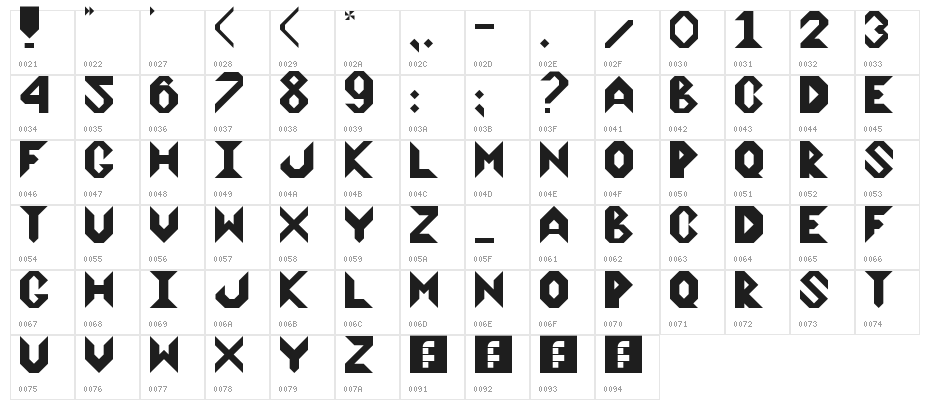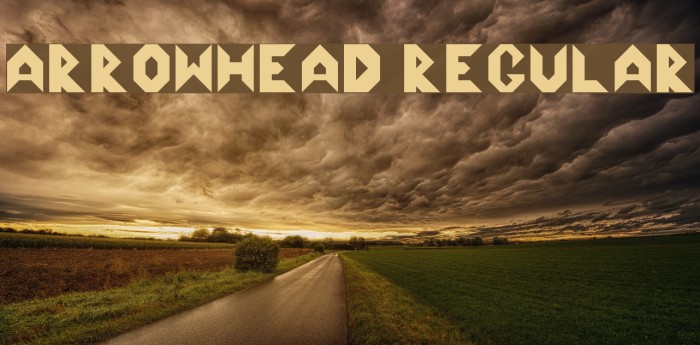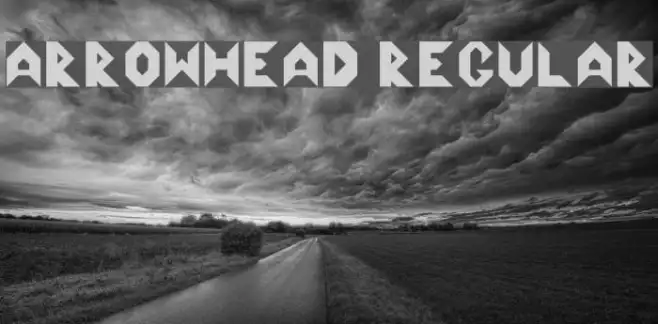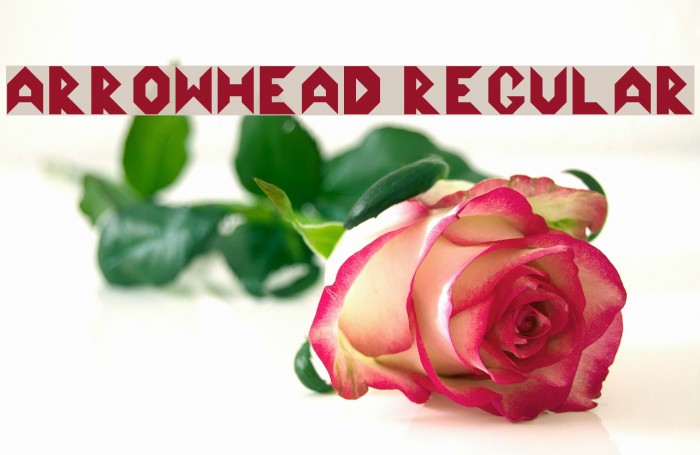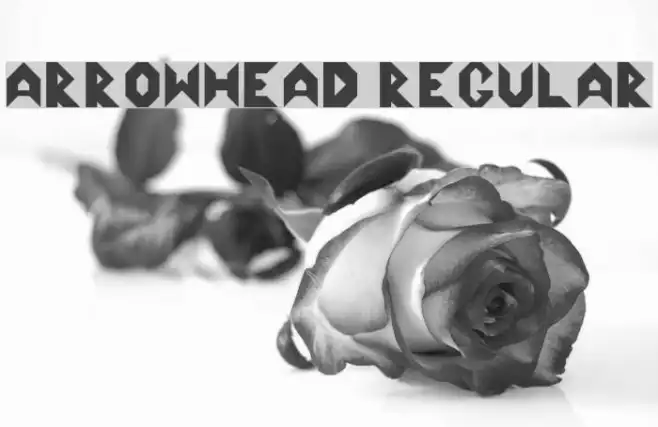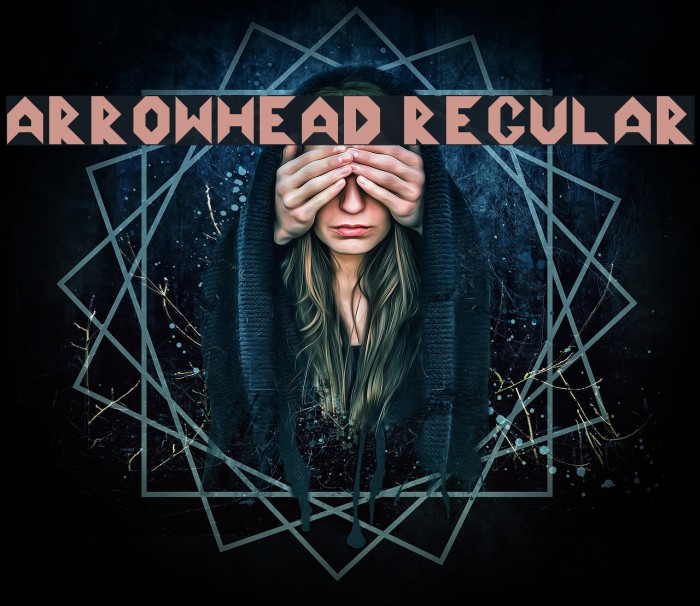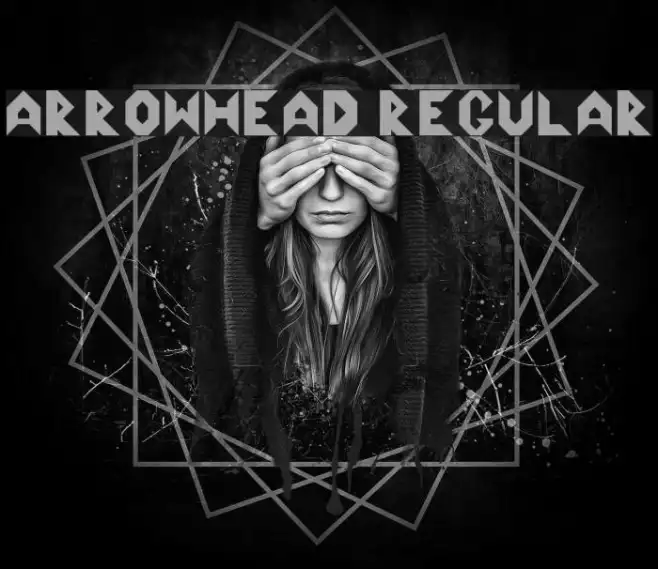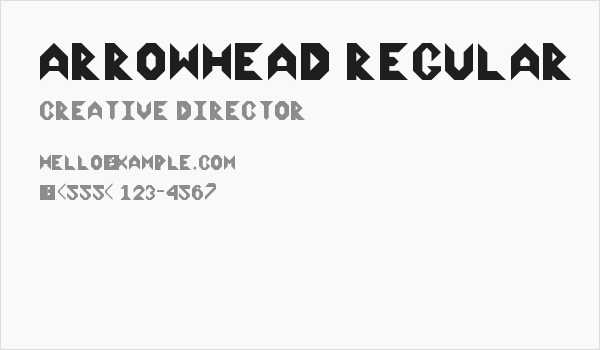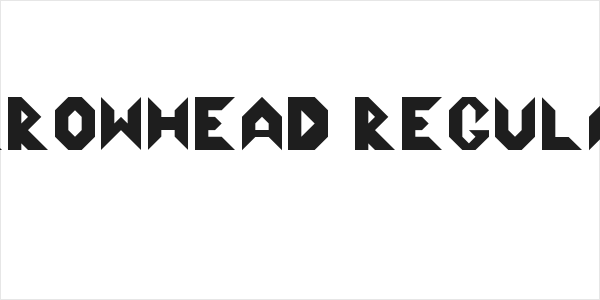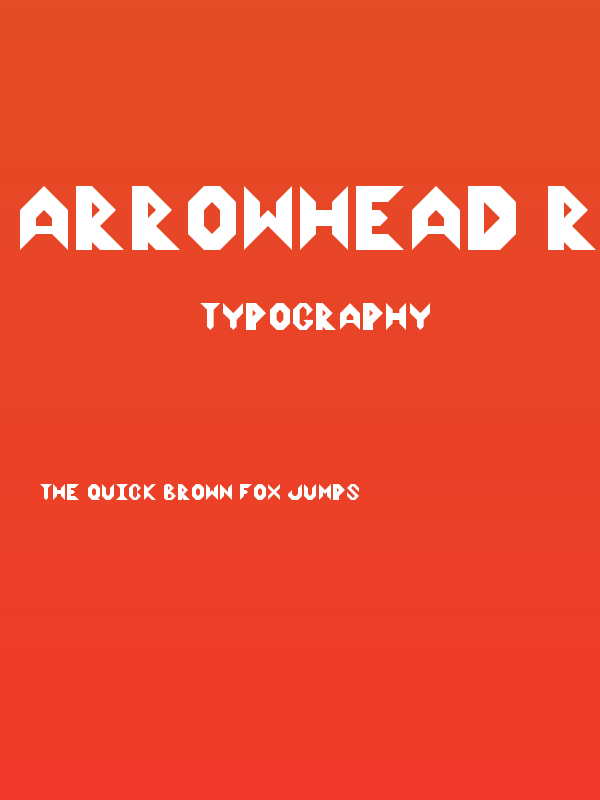
Arrowhead Regular Font
Arrowhead Regular Description
This font features a bold and angular design, characterized by sharp, geometric shapes that resemble arrowheads. The uppercase and lowercase letters maintain a consistent style, with strong lines and pointed edges that give it a distinct, aggressive appearance. The numerals and special characters follow the same design principles, ensuring uniformity across all glyphs. Its unique style makes it stand out, offering a modern and edgy aesthetic that is both eye-catching and memorable.
| Proposed Projects | Ideal for branding, logos, posters, and any project requiring a strong, modern visual impact. |